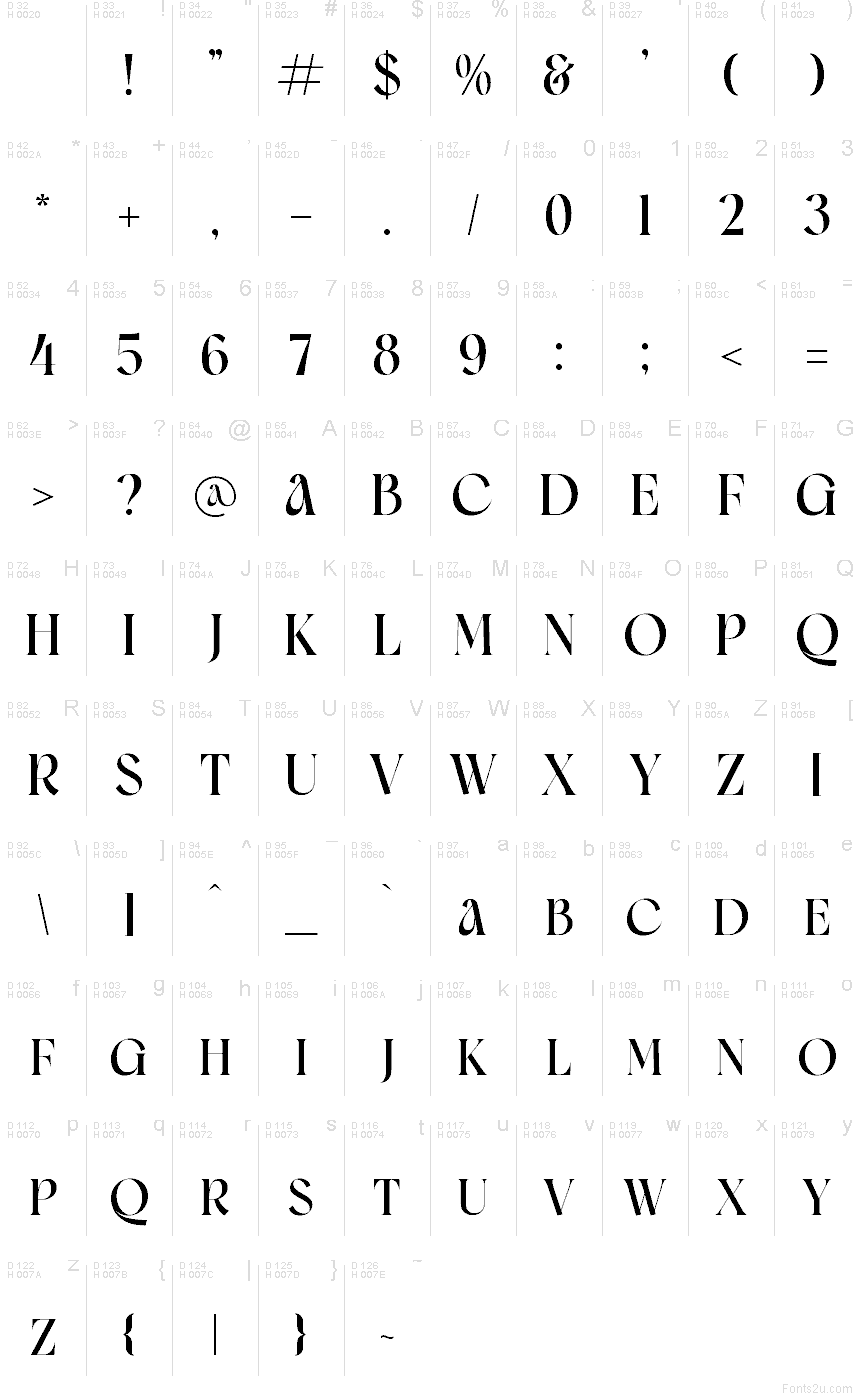
Moves Cabse by TimelessType.co is a free high-contrast serif with a sleek fashion-editorial attitude. The letters feel tall, smooth, and dramatically tapered, pairing broad round forms with razor-thin joins and a few sharp, almost slicing diagonals that keep the rhythm poised rather than ornate.
It fits naturally in magazine mastheads, beauty packaging, boutique branding, poster headlines, and refined social media title cards. As a free font, it is most convincing in short display settings where that glossy contrast and narrow elegance can carry a word, from cover lines to monograms and opening initials.